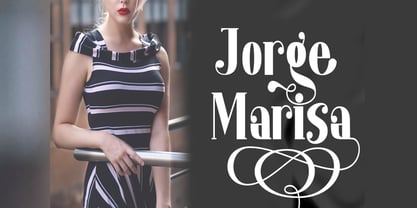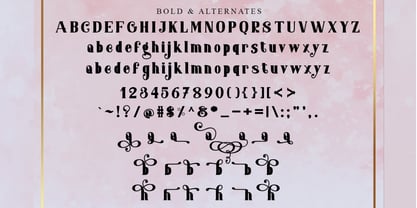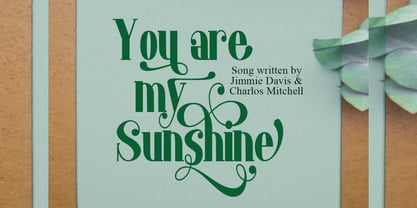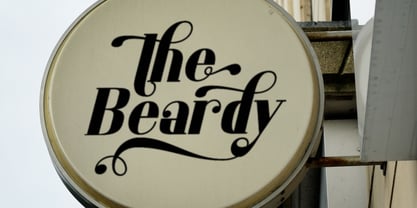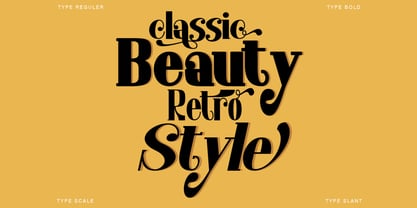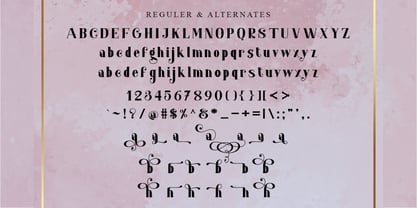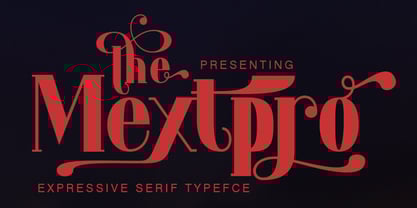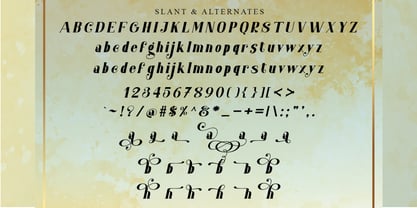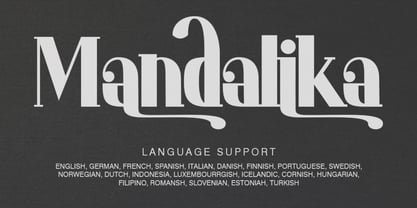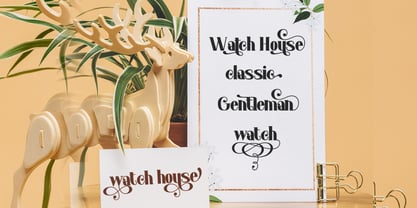
Mextpro
by Gian Studio
The Mextpro Font Family was designed by Yusliana M Isa and published by Gian Studio. Mextpro contains 4 styles and family package options.
Maxtpro Featuring Slab Serif totality and elegance. One of my most recent first releases, naturally drawn with pinpoint accuracy. Maxtpro has the perfect amount of simplicity and subtlety for your next project. It perfectly represents the retro and vintage aesthetic. I recommend this font for your next logo, invitation, and home decor project that needs a succinct alternative combination touch!
Maxtpro appears with strong characters available: